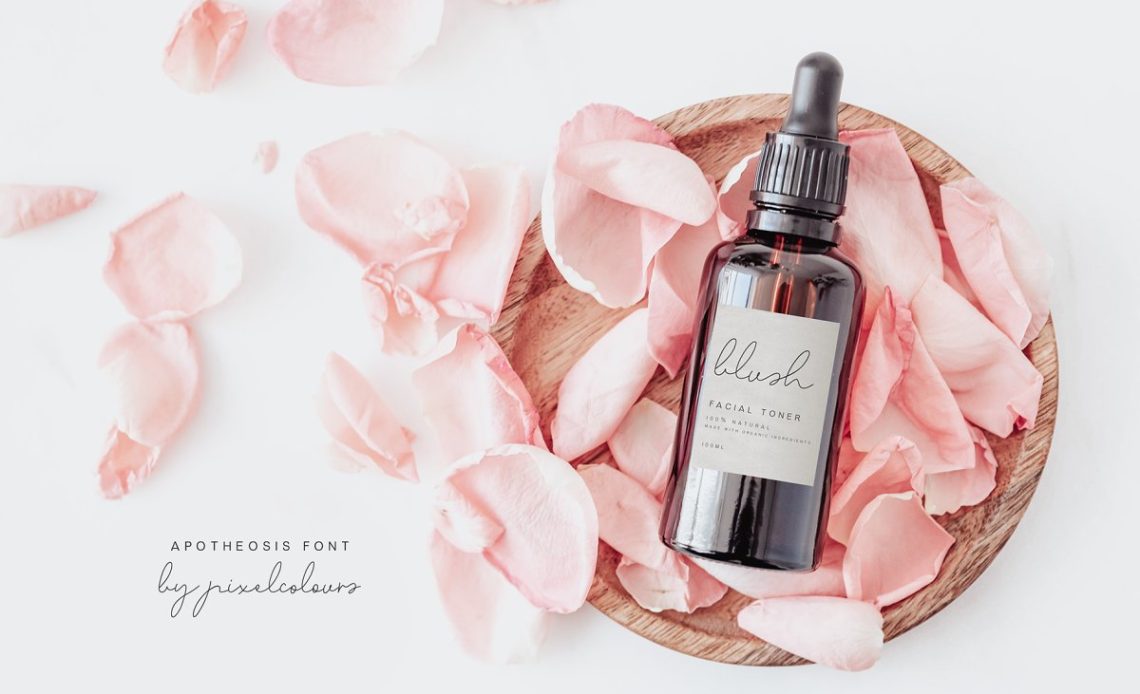
Looking for a beautiful, modern script font that will add a touch of elegance to your design projects? Look no further than Script Font Apotheosis, created by Pixel Colours. This stunning font features clean lines and modern flows, making it the perfect choice for wedding invites, branding, labeling, packaging, and more.
Script Font Apotheosis comes with a range of automatic ligatures and stylistic alternates, as well as a bold, beautiful big ending "s" that makes a statement with every word. It also includes a small uppercase sans font, allowing you to create the perfect pairing for your design needs.
With support for OpenType features, this font is easy to use in programs like Adobe, giving you access to a range of additional glyphs and alternate characters. And with language support included, you can use Script Font Apotheosis in a variety of different projects.